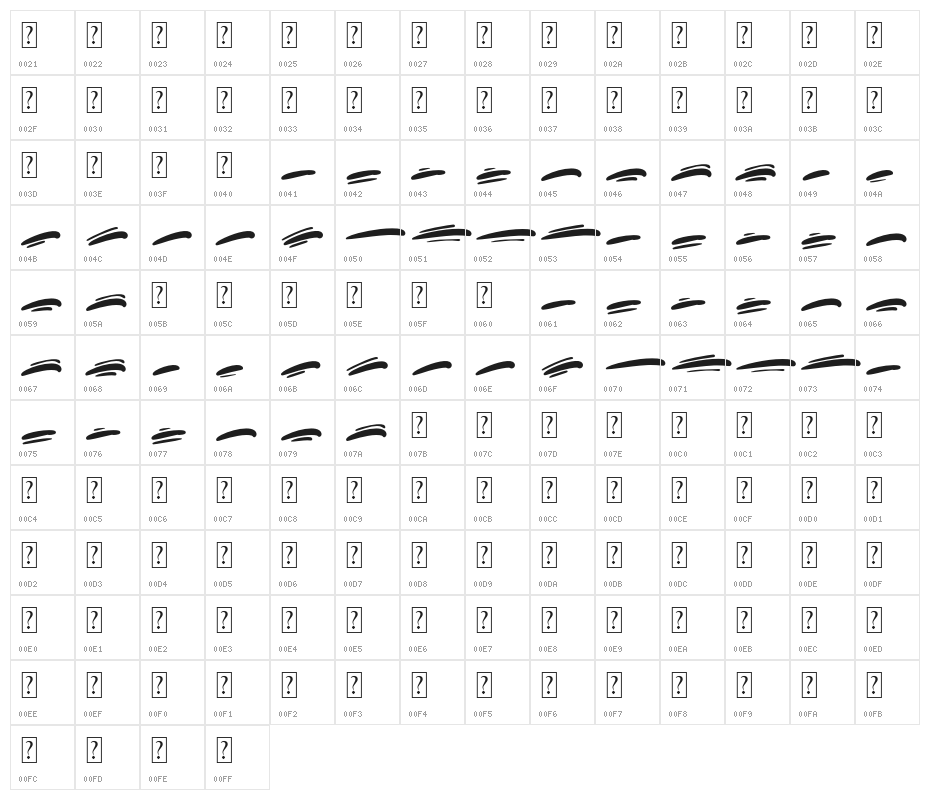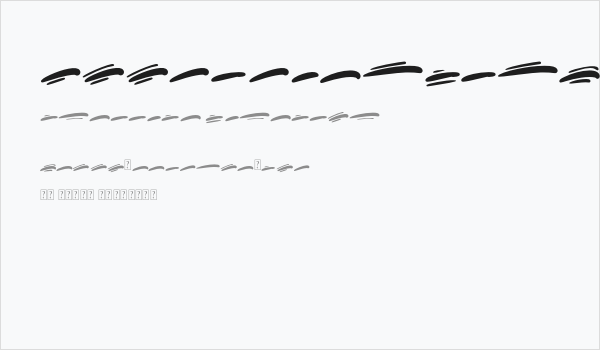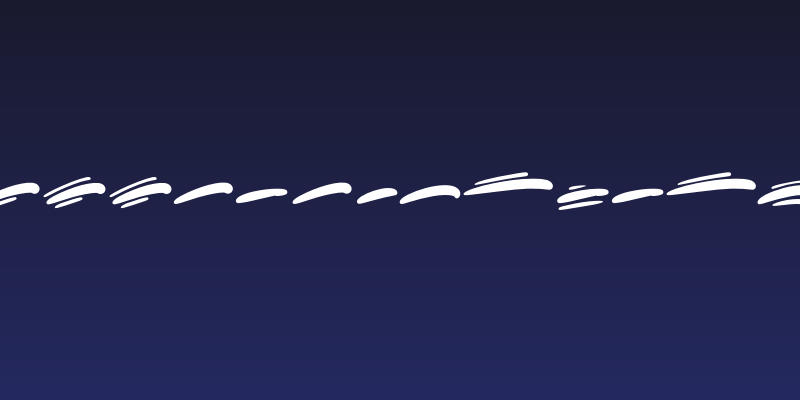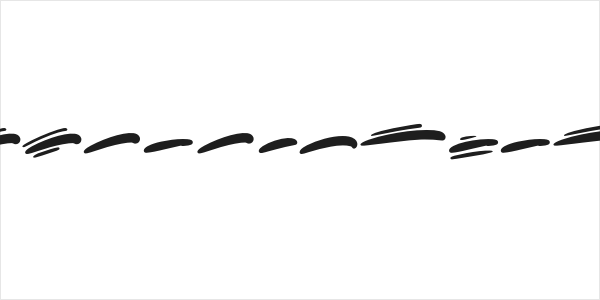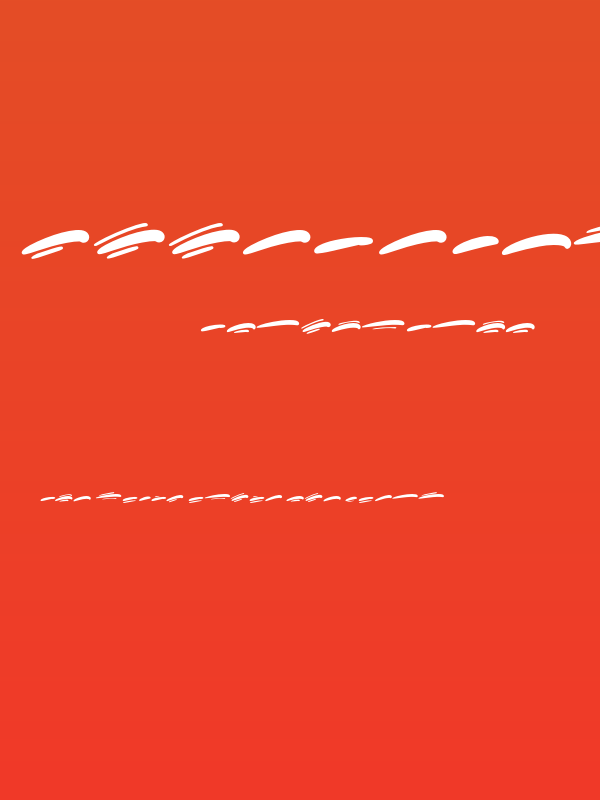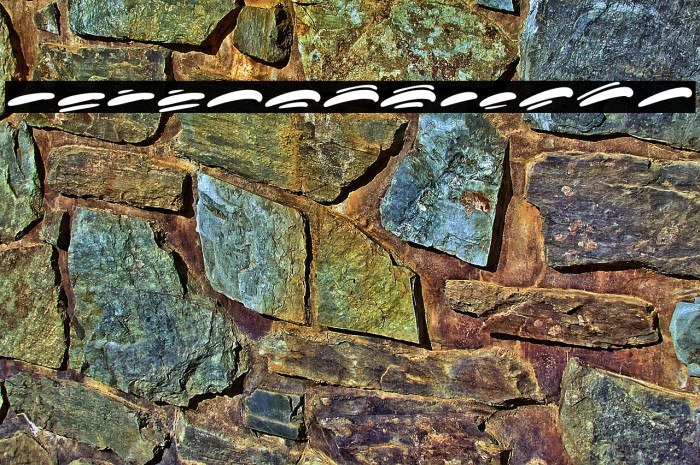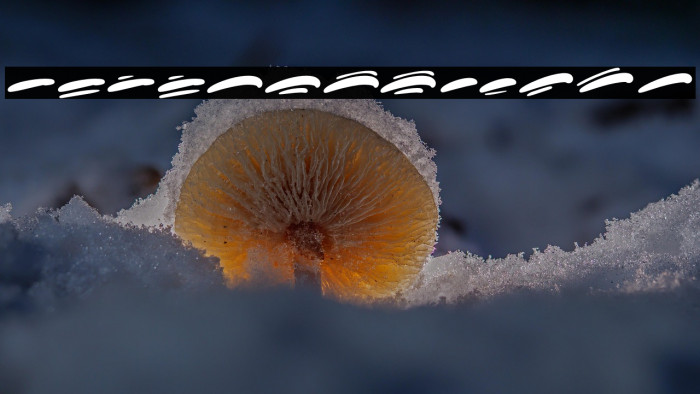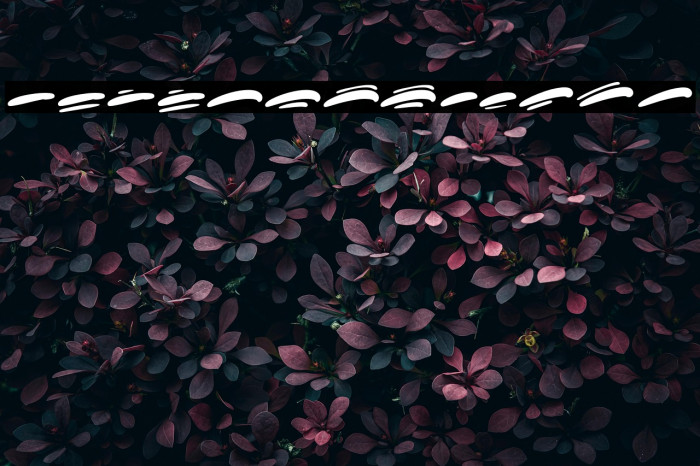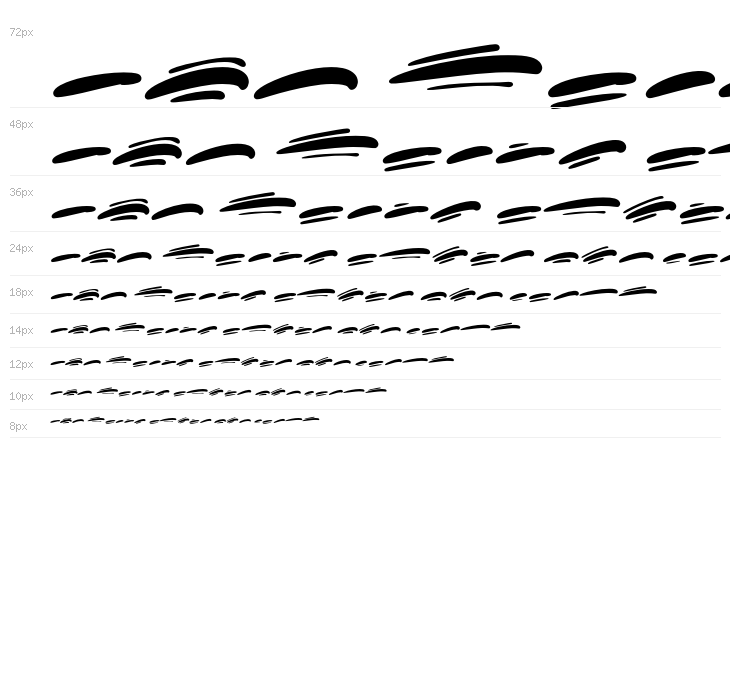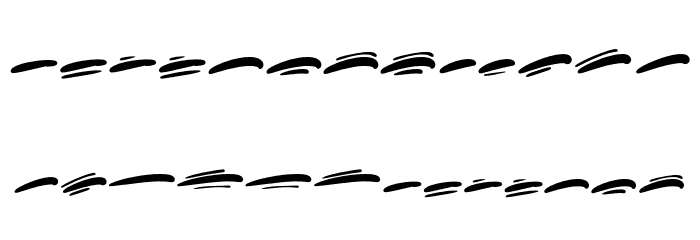
KoonamieSwash Font
KoonamieSwash Description
This font features a dynamic and expressive style, characterized by its bold, sweeping strokes that mimic the fluidity and spontaneity of hand-drawn calligraphy. The letters are crafted with a sense of motion, giving them a lively and energetic appearance. The strokes vary in thickness, adding a sense of depth and dimension to the characters. This font is particularly suited for creative projects that require a touch of elegance and flair. Its unique style makes it ideal for artistic and decorative purposes, where a strong visual impact is desired.
| Use Case | Logos, Headlines, Artistic designs |
| Proposed Projects | Ideal for artistic designs, invitations, posters, and branding that require a dynamic and elegant touch. |